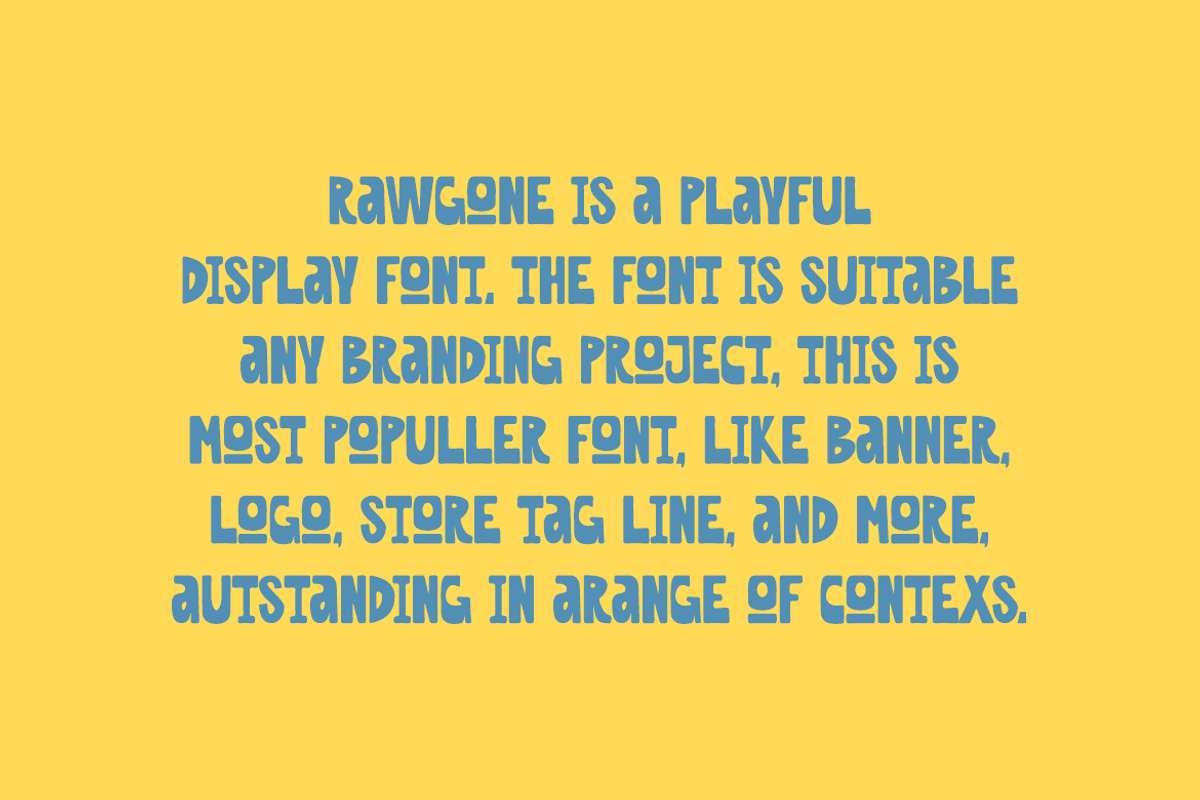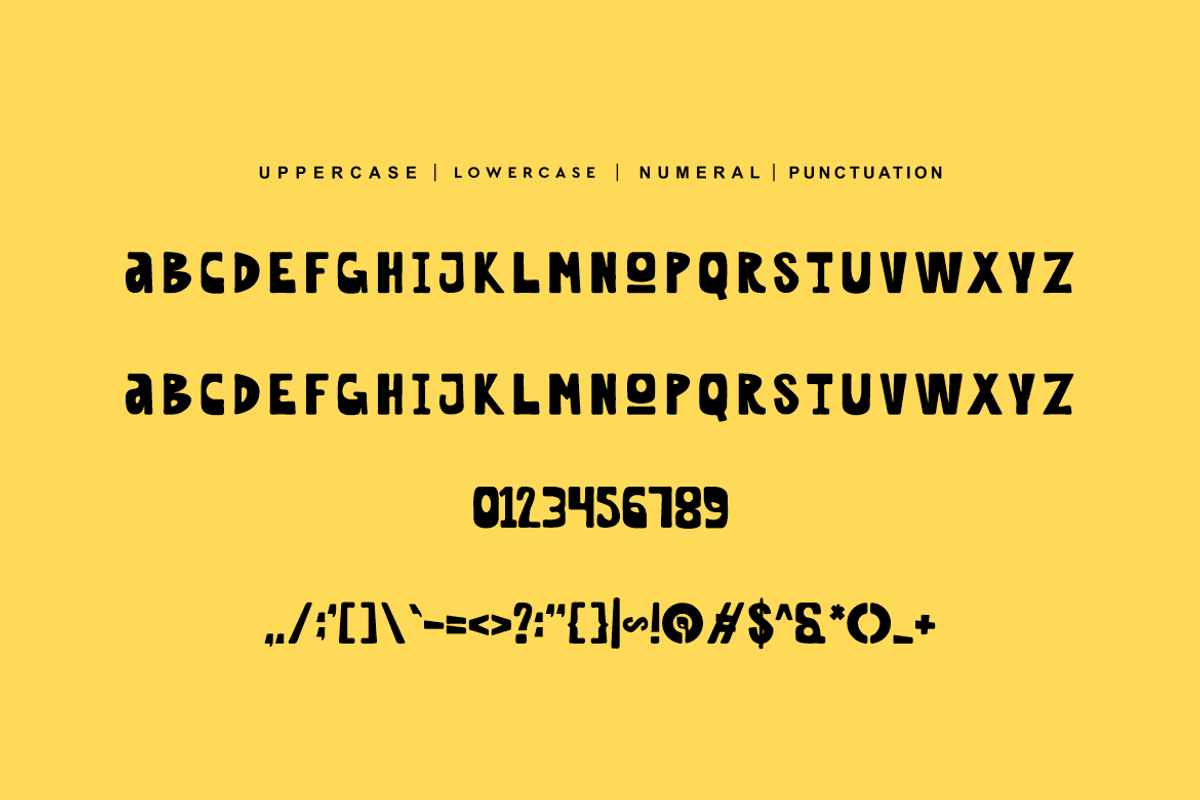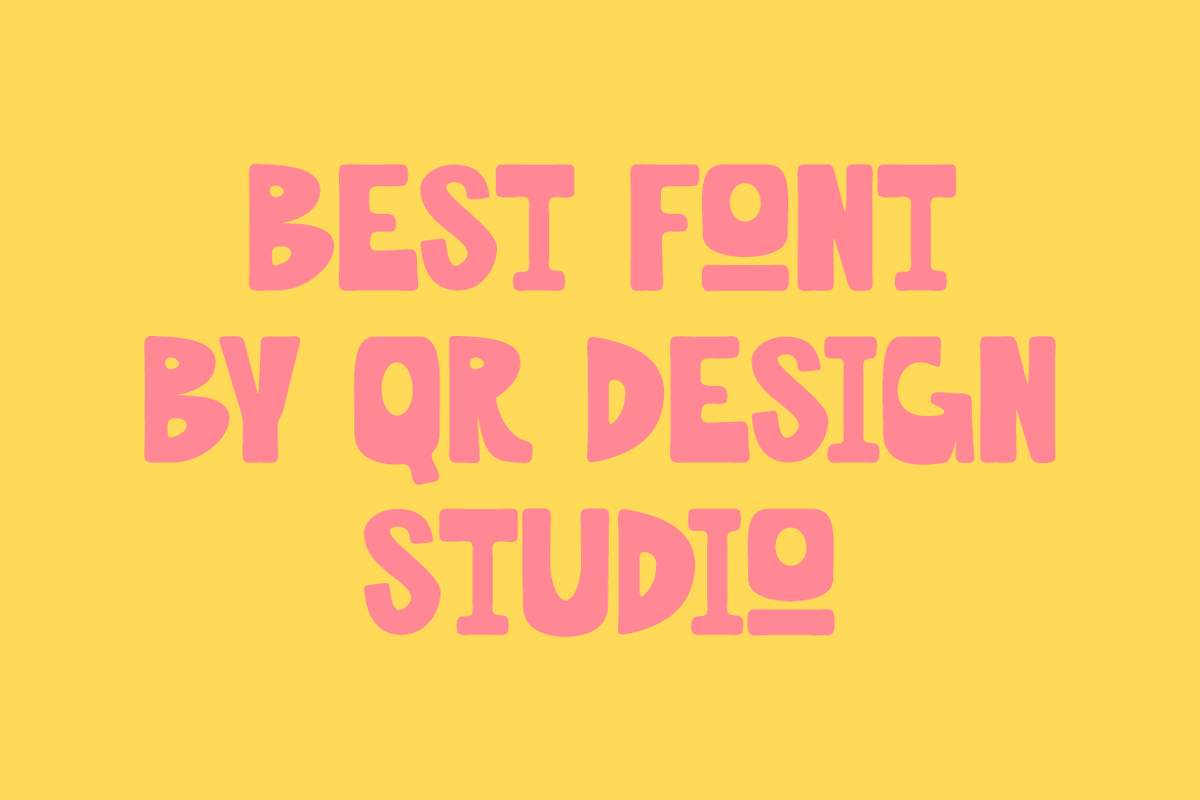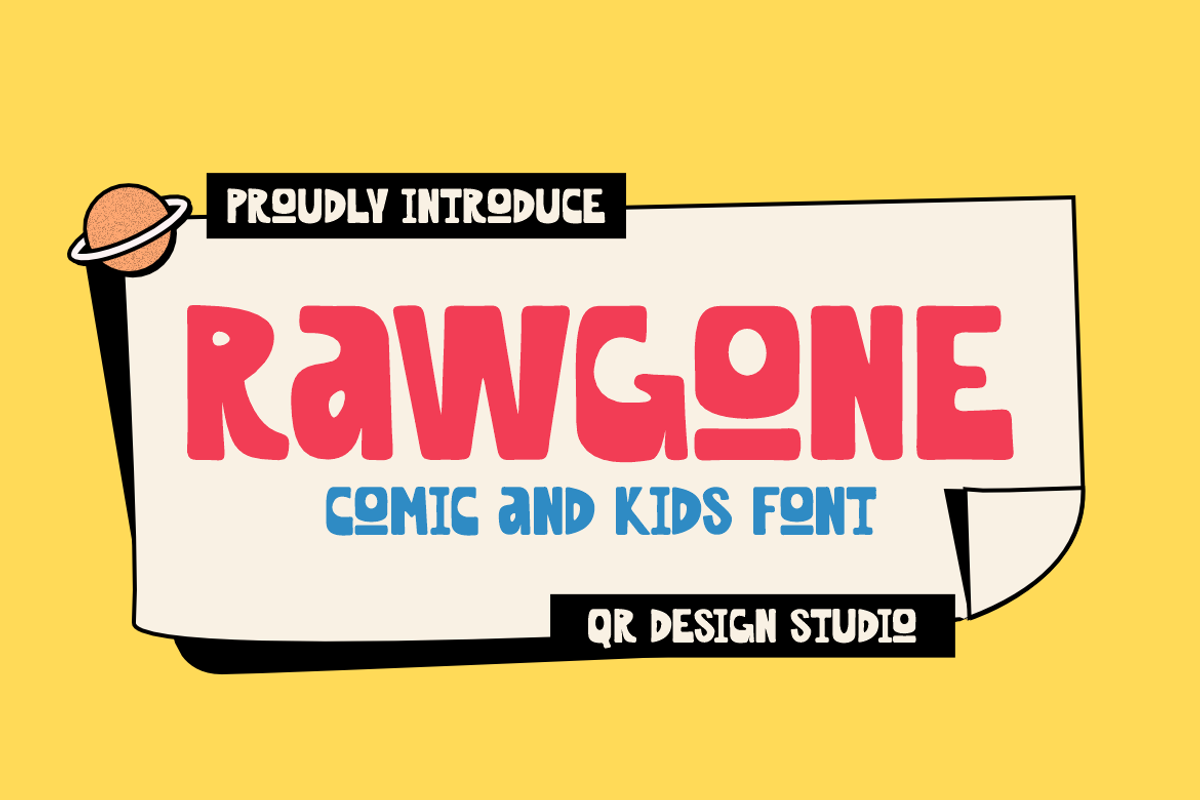
Rawgone - Comic & Kids Font
Rawgone Font is a bold and authentic display font. The font is suitable for any branding project like poster, logo, kids, and many more. Outstanding in a wide range of contexts.